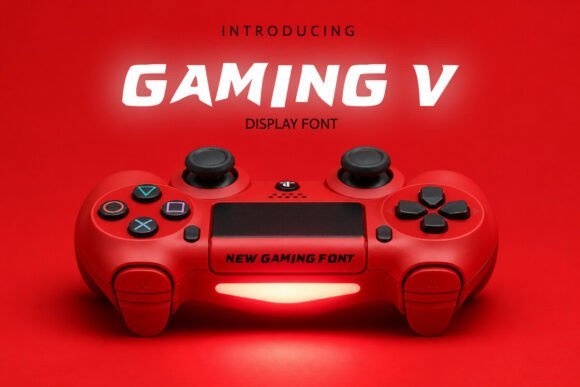
The Ultimate Font for Gaming Domination
Remember that moment when you finally beat your favorite game after hours of grinding? The rush of adrenaline, the sense of accomplishment, and the satisfaction of emerging victorious – it’s an experience like no other. But have you ever stopped to think about the fonts that helped bring that excitement to life?
Enter Gaming V Font, a game-changing display font engineered specifically for the world of gaming, esports, and high-performance branding. Designed to exude speed, dominance, and energy, this font is a must-have for designers looking to create a lasting impression on their audience. Whether you’re crafting an esports team logo, a gaming YouTube thumbnail, or a Twitch overlay, Gaming V Font delivers the intensity your design demands.
With Gaming V Font, you’ll be able to communicate your brand’s message with precision and confidence, making it a valuable addition to any designer’s toolkit.
Gaming V Font Key Features
- Font Family: Gaming V Font is a sans-serif font family designed specifically for gaming and digital applications.
- Character Set: The font family includes a comprehensive set of characters, including uppercase and lowercase letters, numbers, punctuation marks, and special characters, making it suitable for use in various languages.
- Unique Characteristics: The font’s unique design elements, such as its bold lines, geometric shapes, and futuristic feel, make it an ideal choice for gaming and digital applications where a modern and edgy look is desired.
Gaming V Font Review
Overall, I’m quite impressed with the Gaming V Font. It’s modern, edgy, and screams “gamer” from a mile away. ✨ Here are some things that I think it does well:
- Unique Character: The Gaming V Font has a distinct character that sets it apart from more traditional fonts. It’s bold, it’s confident, and it’s sure to turn heads.
- Legibility: Despite its boldness, the font is still surprisingly legible, even at smaller sizes.
Of course, no font is perfect, and the Gaming V Font has a few limitations that I want to mention:
- Limited Stylistic Options: While the font itself is bold and eye-catching, it doesn’t offer a lot of stylistic options for customization.
- Not Ideal for Body Text: Due to its boldness, the font can be a bit overwhelming when used for large blocks of body text.
- Not Suitable for Formal Settings: If you’re looking for a font to use in a formal setting, such as a business presentation or a wedding invitation, the Gaming V Font may not be the best choice.
Overall, I think the Gaming V Font is a great choice for anyone looking for a bold, edgy font to add some personality to their design. Just be aware of its limitations, and use it judiciously. ⚠️
Tips for Getting the Most Out of Gaming V Font
For best results, use Gaming V Font for headings and titles to create a bold, eye-catching effect.
Pair Gaming V Font with a clean, sans-serif font for body text to maintain readability.
Gaming V Font is ideal for:
- Gaming-related projects, such as game logos or promotional materials.
- Edgy, futuristic designs, such as sci-fi or cyberpunk-inspired projects.
- Adding a touch of nostalgia or retro flair to your design.